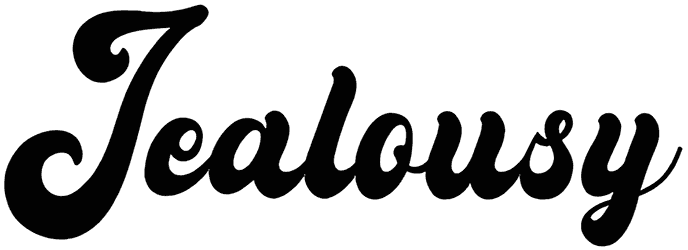
Jealousy Font
Nostalgia and groove radiate from retro fonts, and this one does the same to the reader. The Jealousy font contains bold characters that have a vintage and upbeat look them which we have seen on our beloved summer festival banners. You can use this old-school font in retro movie and book titles, channel banners, and fashion blogs to give a continuous style to your words.